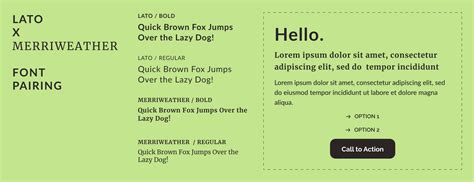
Lato Font Pairing. Web some popular lato font pairings in professional designs include pairing lato with serif fonts like roboto slab, bitter, or source serif pro. If you're thinking about using lato then try 20px for.
The family includes 4 cuts: Web arvo and lato font pairing. It is a libre font, first published. It goes well with montserrat, roboto, open sans, playfair display, proxima nova, vollkorn, ubuntu, bebas, georgia and roboto slab. Roman, italic, roman bold, bold italic. If you're thinking about using lato then try 20px for. Web some popular lato font pairings in professional designs include pairing lato with serif fonts like roboto slab, bitter, or source serif pro.
Web arvo and lato font pairing. Roman, italic, roman bold, bold italic. The family includes 4 cuts: Web arvo and lato font pairing. It goes well with montserrat, roboto, open sans, playfair display, proxima nova, vollkorn, ubuntu, bebas, georgia and roboto slab. Web some popular lato font pairings in professional designs include pairing lato with serif fonts like roboto slab, bitter, or source serif pro. If you're thinking about using lato then try 20px for. It is a libre font, first published.